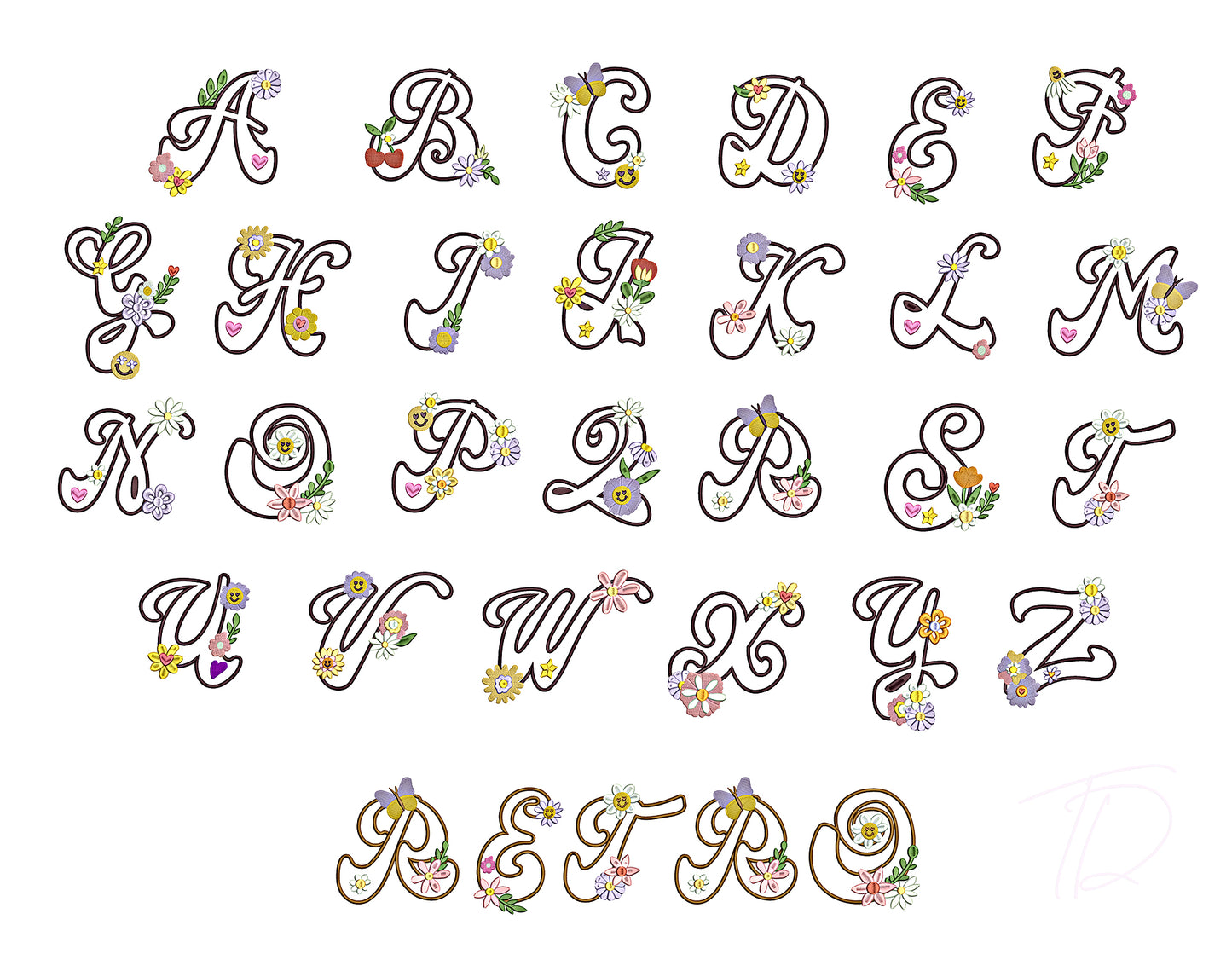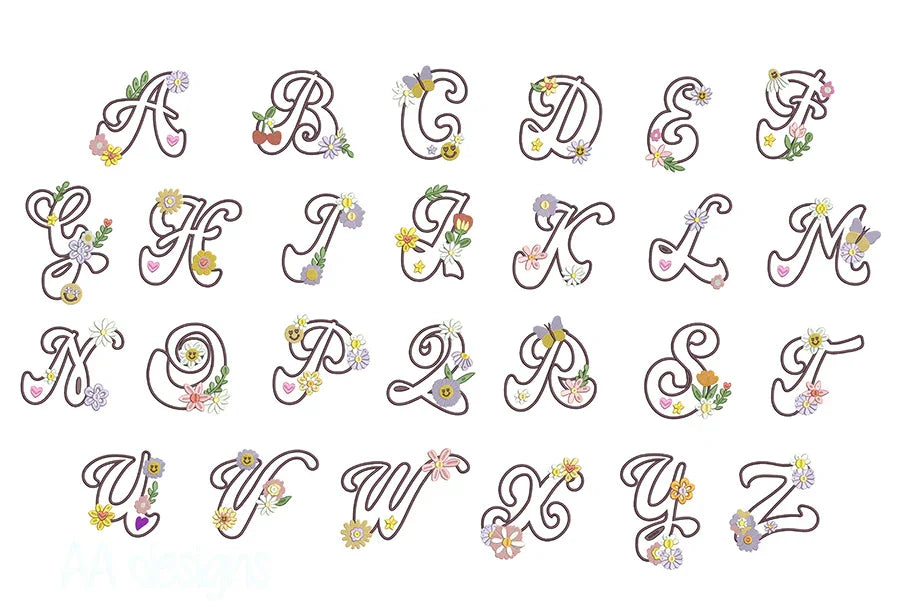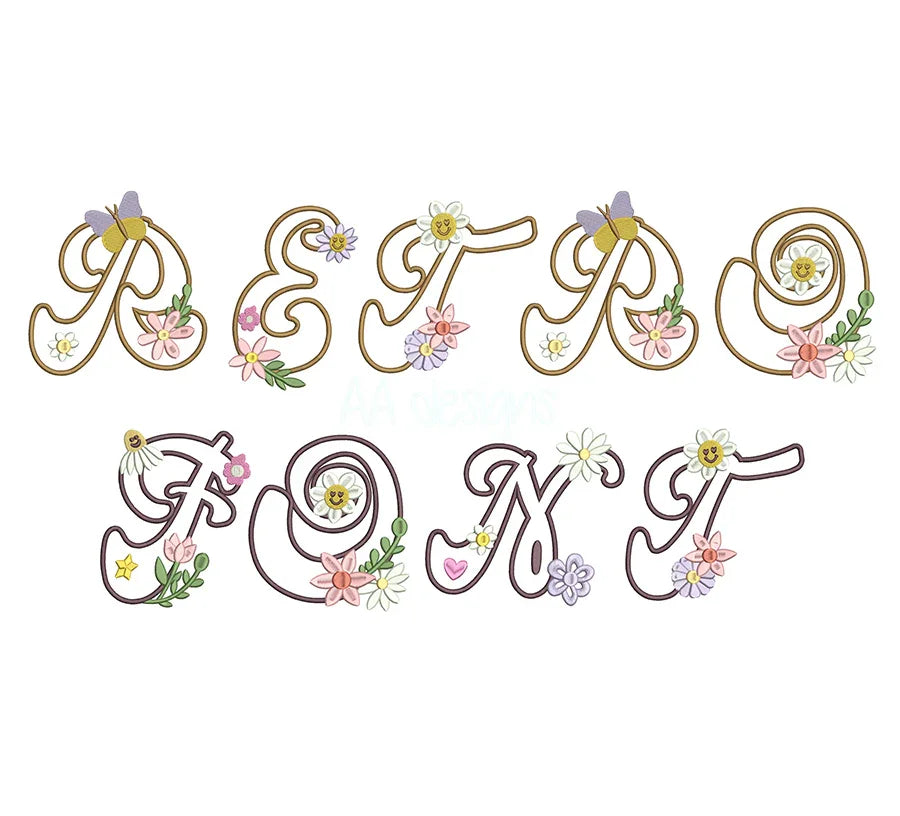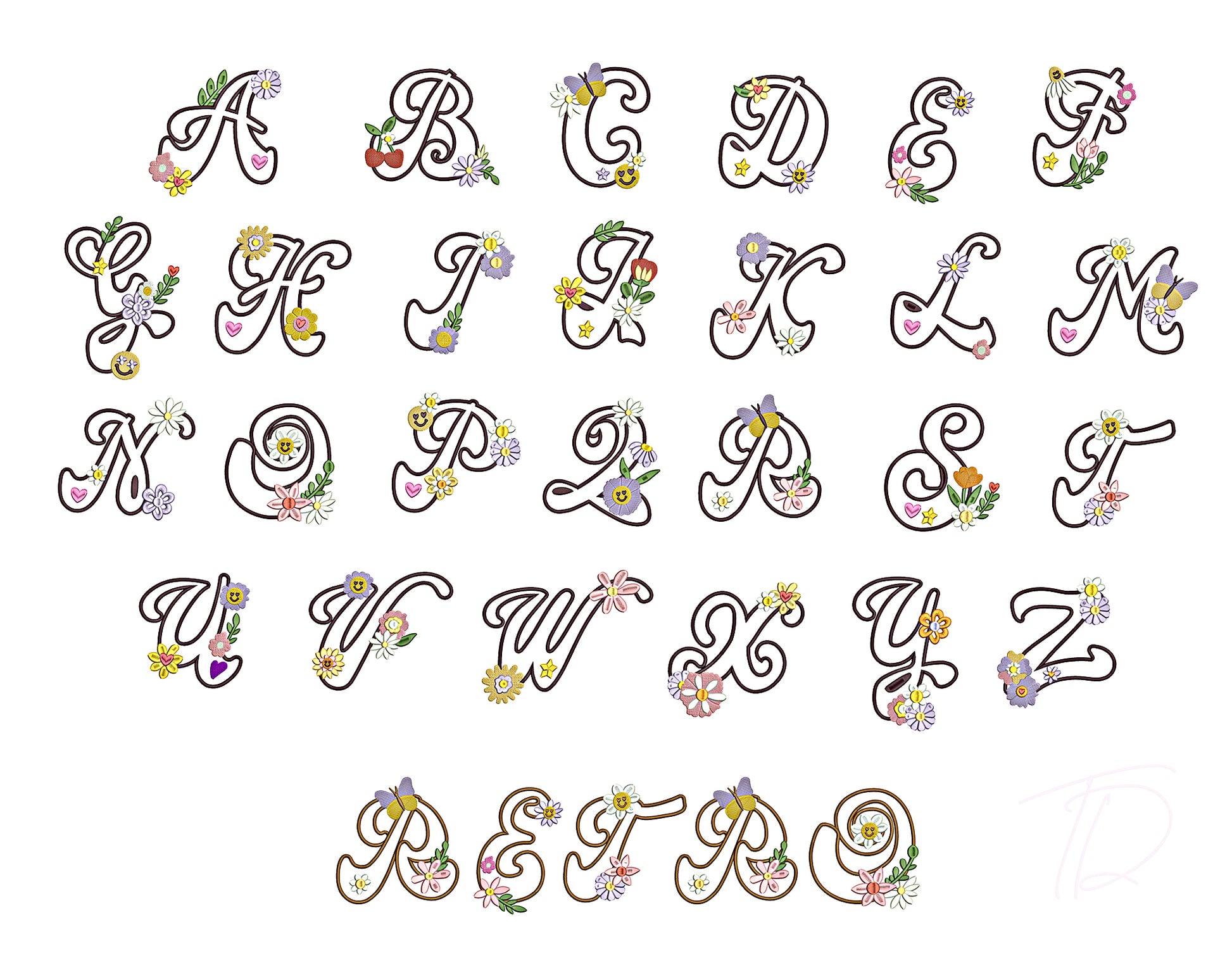
Groovy Retro Applique embroidery digital font. Machine embroidery alphabet in applique. Embroidery font, embroidery alphabet, embroidery monogram font. BX format
Groovy Retro App embroidery digital font
This font comes with letters in 3 sizes, A-Z